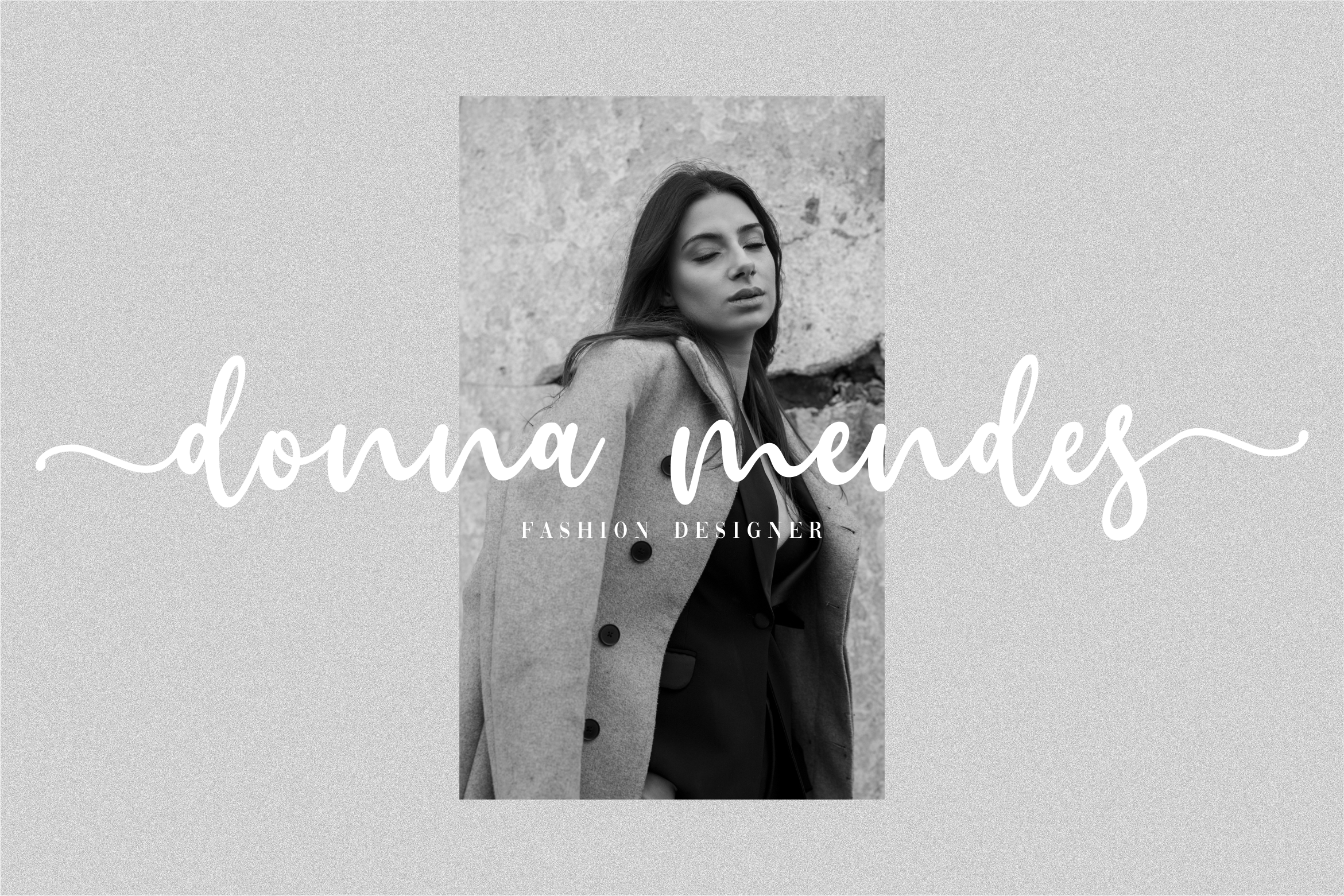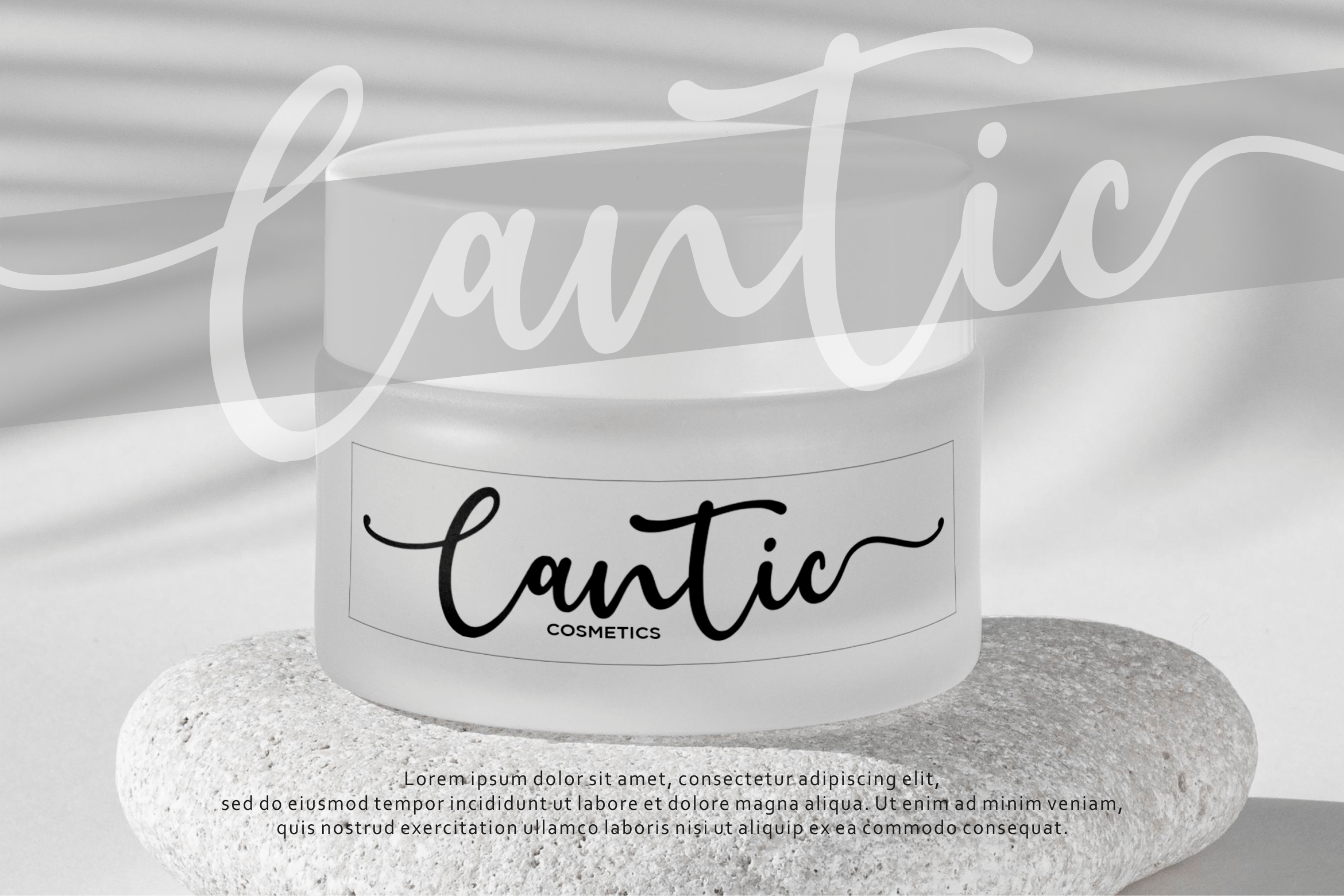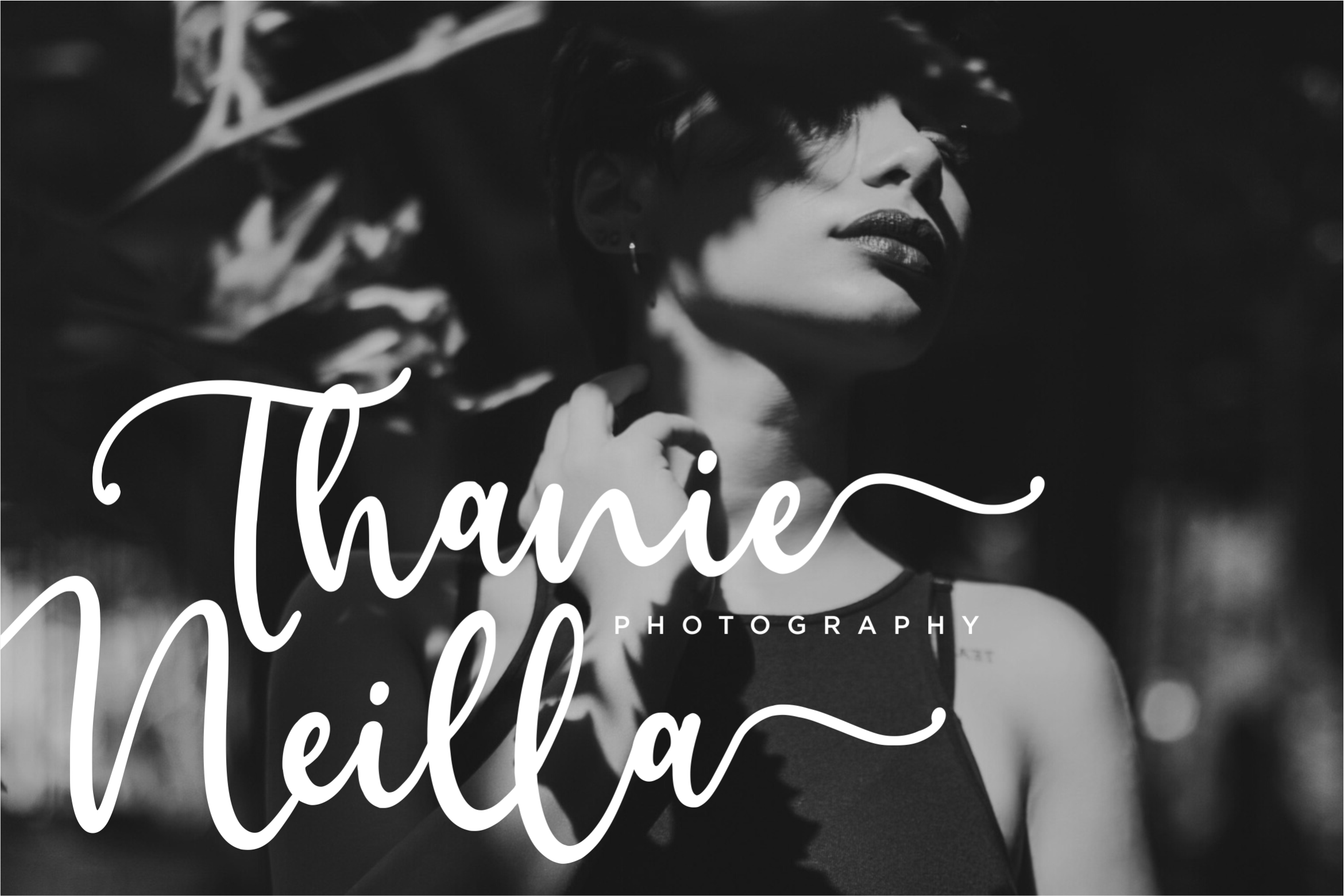
Jeannica Font
Jeannica Handwritten Font
This is a modern calligraphy font. Jeannica is perfect for product packaging, branding project, megazine, social media, wedding, or just used to express words above the background. This font includes OTF & TTF, Jeannica also multilingual support.